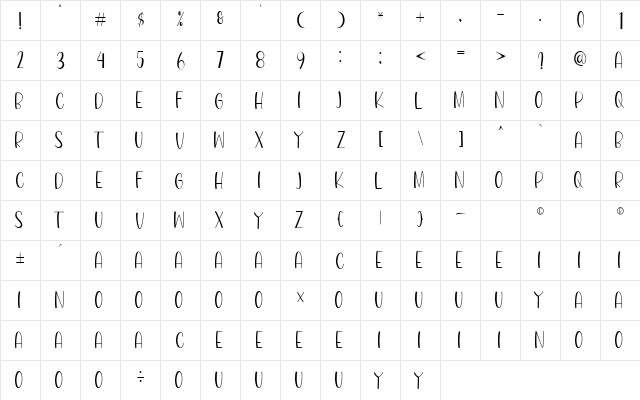
Winter Moments Regular
| Foundry | Fillo Graphic |
| Designer | Nopianti |
Design Context for Winter Moments Typeface
Winter Moments offers clean, dependable letterforms without strong stylistic allegiance, making it a practical choice for designers who need flexibility.